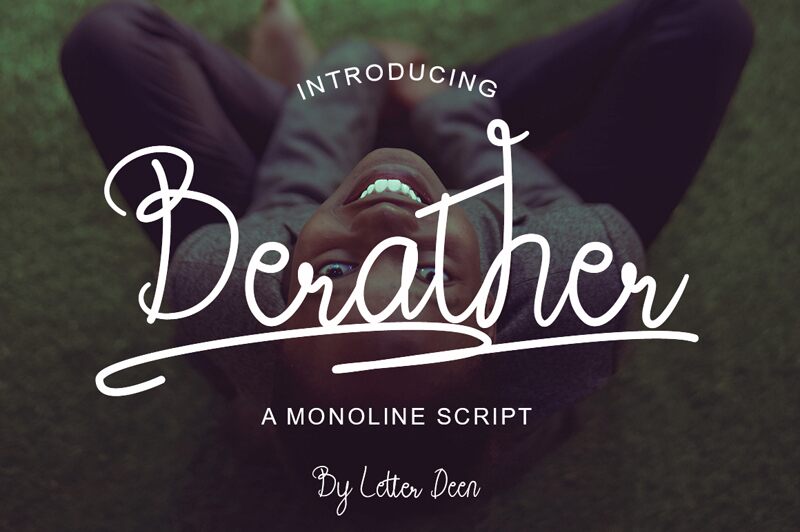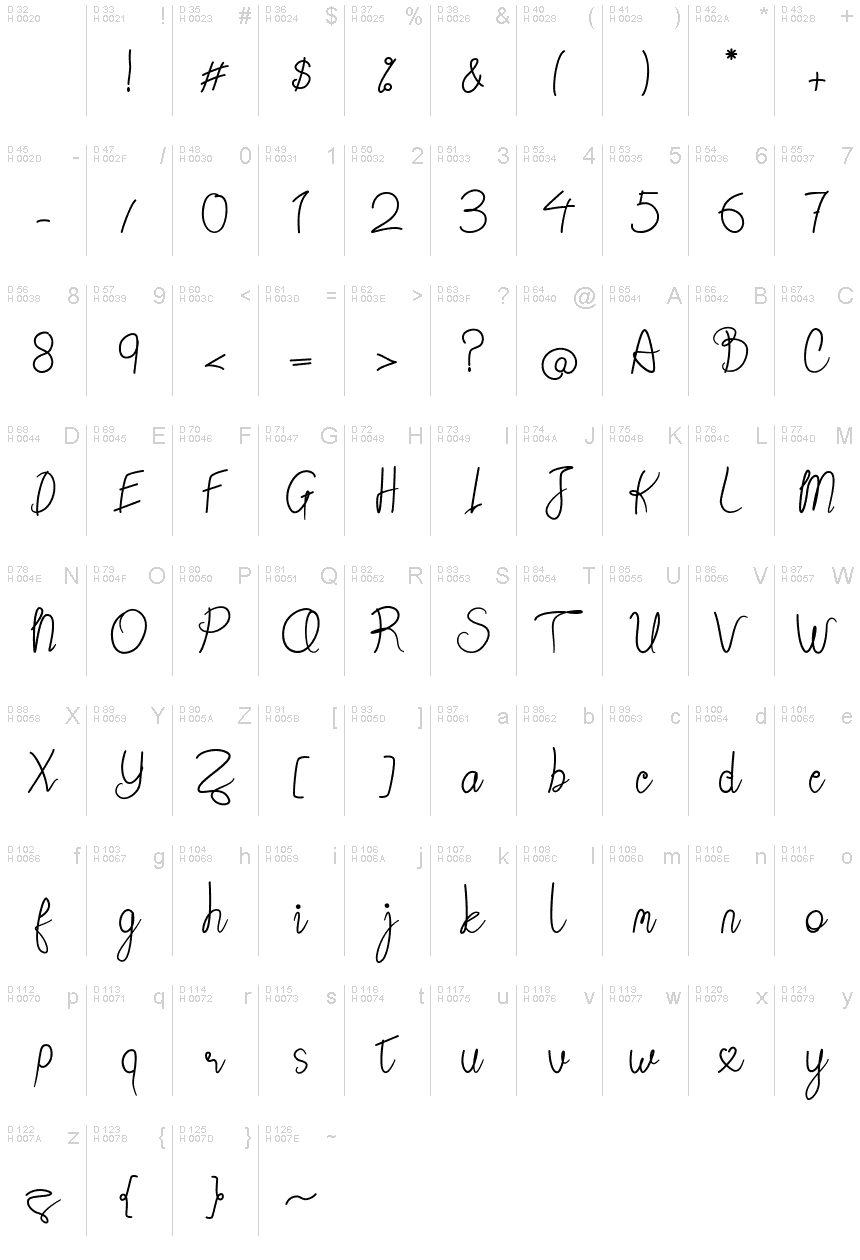
Berather
Berather Font is monoline script, with sweet touches and beautiful curves on each letter. This font is great for your next creative project.
Berather Font is perfect for fashion magazines, product watermarks, branding projects, wedding designs, social media posts, advertisements, product designs, label product, logo product, photography, invitation, card business and any projects that need handwriting taste.